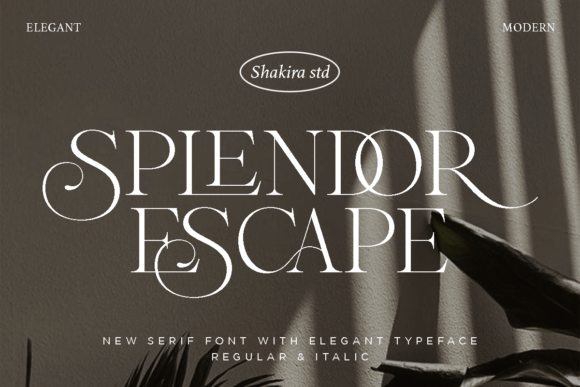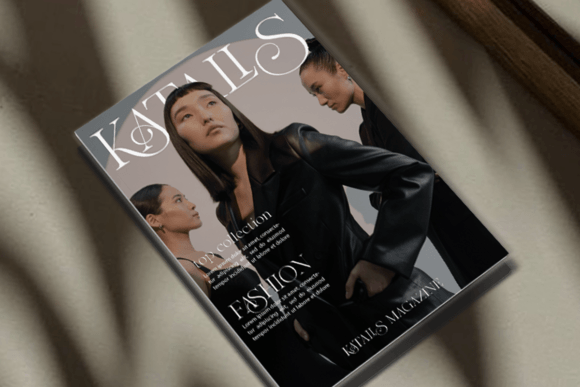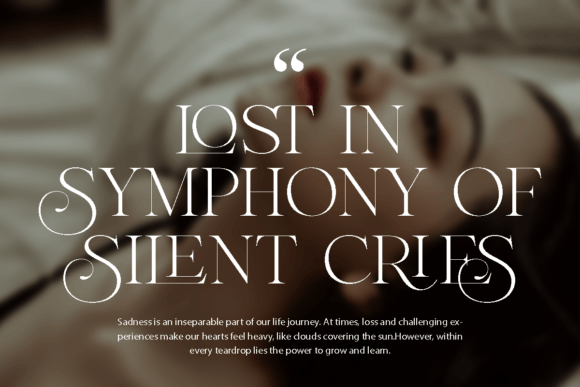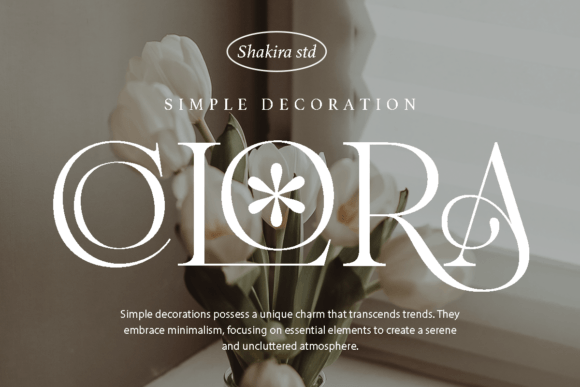
Splendor Escape Font
About the Splendor Escape Font
Introducing the Splendor Escape Font, a beautifully crafted typeface designed to elevate your creative projects. Introducing Splendor Escape – your gateway to modern elegance in serif typography!
Splendor Escape isn’t just a serif font; it’s a journey into the world of sophistication and luxury. With its modern elegant display and luxurious alternates and ligatures, Splendor Escape embodies the epitome of serif fonts and typography trends.
Crafted for designers seeking to make a statement, Splendor Escape offers a perfect blend of style and substance. Its sleek lines and opulent details make it ideal for branding, editorial design, and beyond.
But what truly sets Splendor Escape apart is its versatility. With both regular and italic versions available, you have the freedom to express your creativity in every project, from elegant logos to luxurious packaging.
Elevate your designs to new heights with Splendor Escape. Join the trend toward timeless sophistication and make your projects shine with this exquisite serif font and its luxurious alternates and ligatures!
Splendor Escape Font Usage Examples
Splendor Escape Font Example